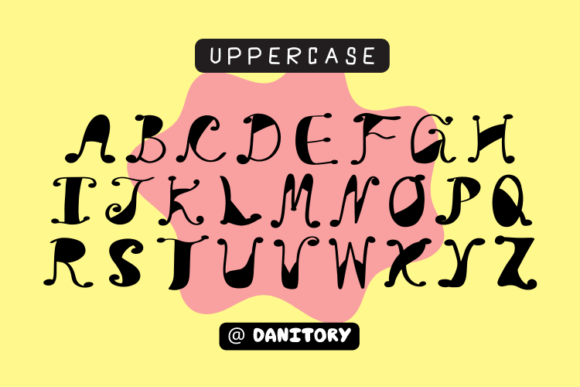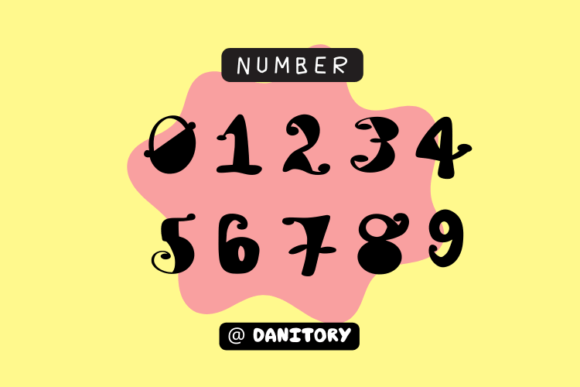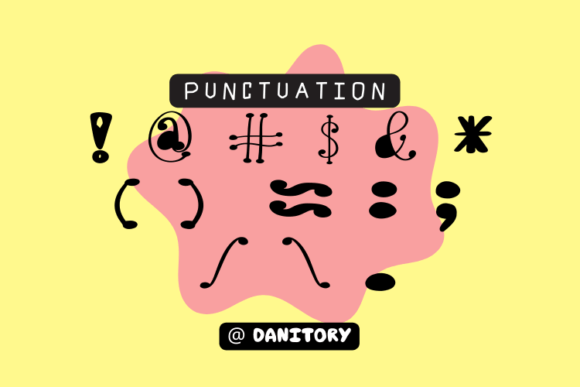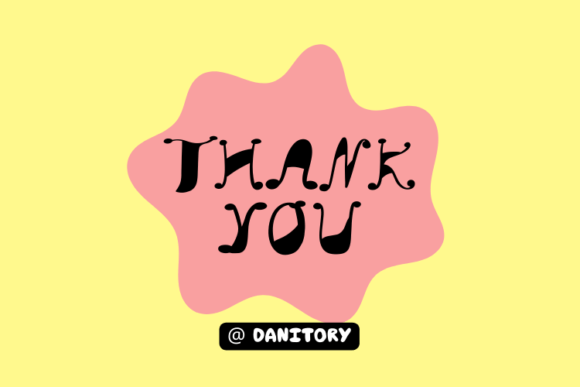
The Ultimate Guide to Funny Font: Adding Whimsy to Your Designs
I’ll never forget the time I was working on a project for a children’s birthday party invitation. I had the design concept nailed, but something was missing – the perfect font. I scrolled through my font library, but nothing seemed quite right. That’s when I stumbled upon Funny Font, a cute and friendly handwritten display font that instantly brought a smile to my face. In this article, I’ll share my experience with Funny Font, its features, and how to make the most of it in your designs.
An Honest Review of Funny Font
So, what makes Funny Font so special? Here are a few things I love about it:
- ✨ Cute and friendly vibe: Funny Font has a playful, approachable feel that’s perfect for designs that need a bit of whimsy.
- ✅ Highly versatile: Whether you’re working on a children’s project, a branding campaign, or a social media graphic, Funny Font adapts seamlessly.
- 🎉 Easy to read: Despite its playful nature, Funny Font remains clear and legible, even at smaller sizes.
Of course, no font is perfect, and Funny Font has a few quirks:
- 🤔 Limited formal applications: While Funny Font is amazing for informal designs, it might not be the best choice for more formal or professional projects.
- ⚠️ Some letters feel a bit cramped: When using Funny Font at smaller sizes or in longer texts, some letters might appear a bit cramped. Experiment with tracking and spacing to find the sweet spot.
The Backstory Behind Funny Font
Funny Font was designed with the intention of bringing a smile to people’s faces. Its creator, a passionate typographer, aimed to craft a font that would be both playful and legible. Inspired by children’s handwriting and classic comic books, Funny Font quickly gained popularity among designers and hobbyists looking for that perfect whimsical touch.
| Font Name | Funny Font |
| Author | danita.kukkai |